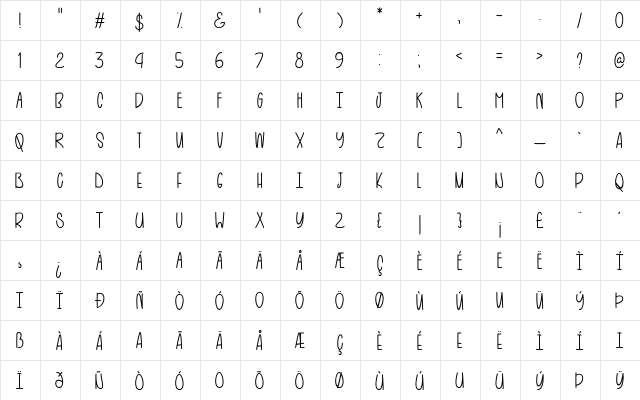
Hot and Black Tea Regular
Design Context for Hot and Black Tea Typeface
Hot and Black Tea takes a measured approach to typography — its balanced proportions and neutral character make it a reliable workhorse for both digital and print work.